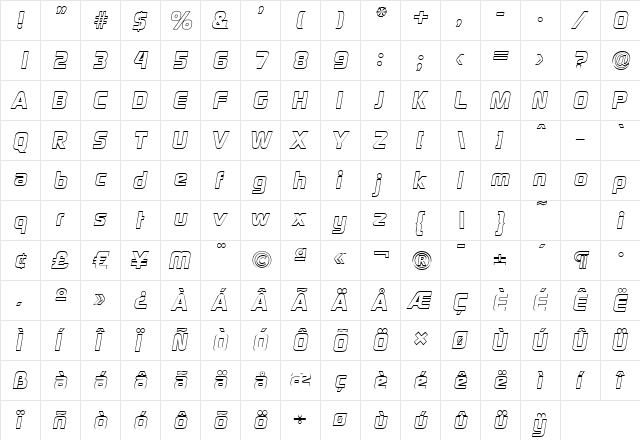
RandyBeckerOutline-ExtraBold Italic Font Preview
Design Context for RandyBeckerOutline-ExtraBold Typeface
RandyBeckerOutline-ExtraBold is built around its visual character rather than neutral utility — its distinctive forms are designed to make an impression at display sizes. The dynamic lean of this cut emphasises speed and emphasis in any layout. The heavy weight commands attention and anchors typographic hierarchies.
Font Pairing: Pair with a clean neutral sans-serif for body copy to let RandyBeckerOutline-ExtraBold's character lead without overwhelming the composition.
Pro Tip: Treat RandyBeckerOutline-ExtraBold as the centrepiece of your typographic hierarchy. One strong heading set in a decorative face can carry an entire layout.